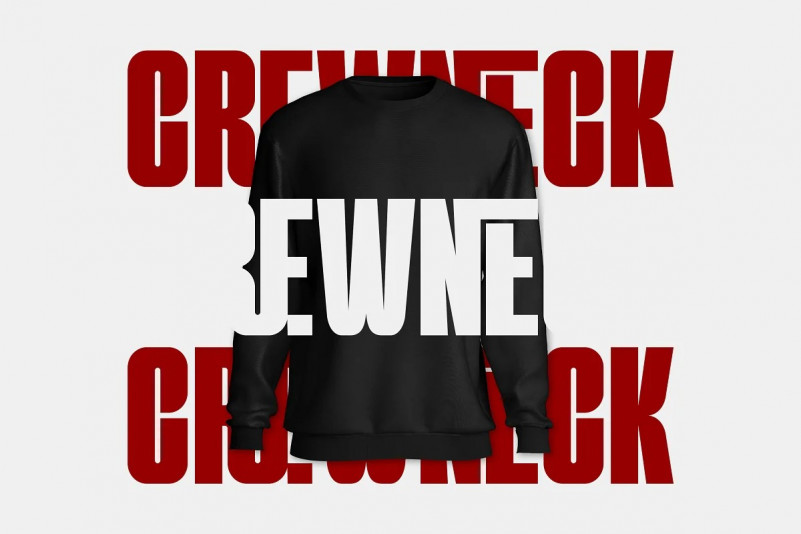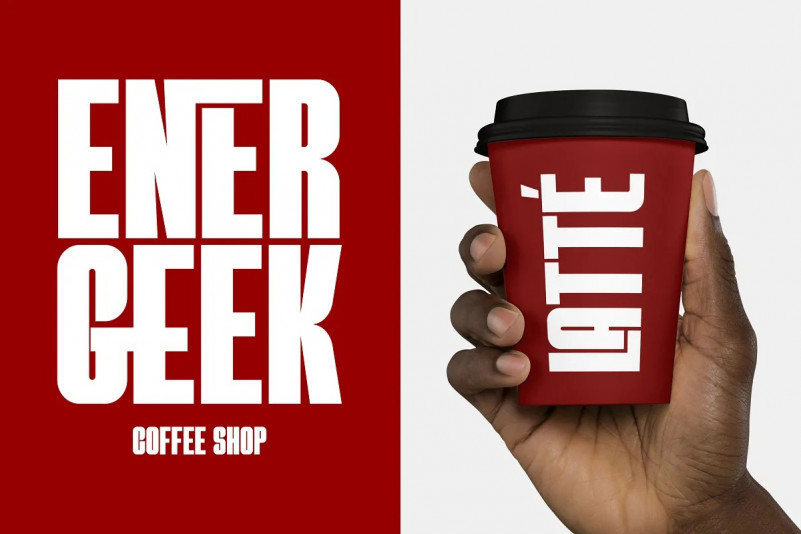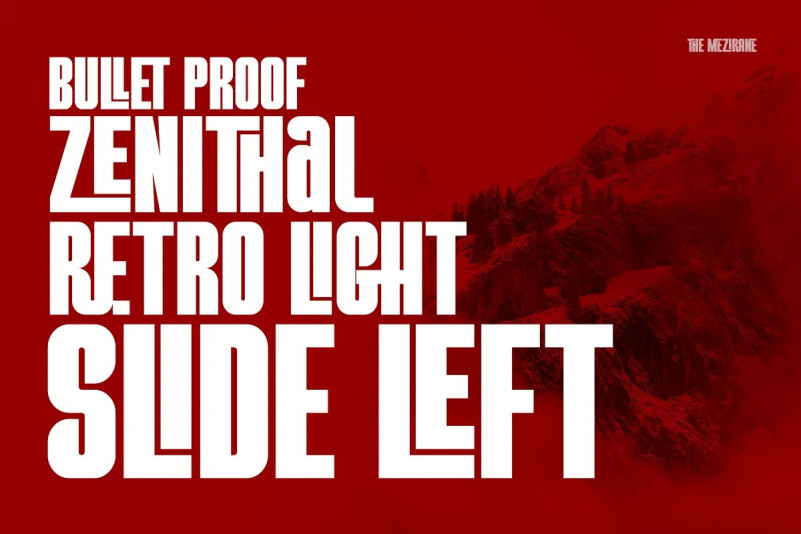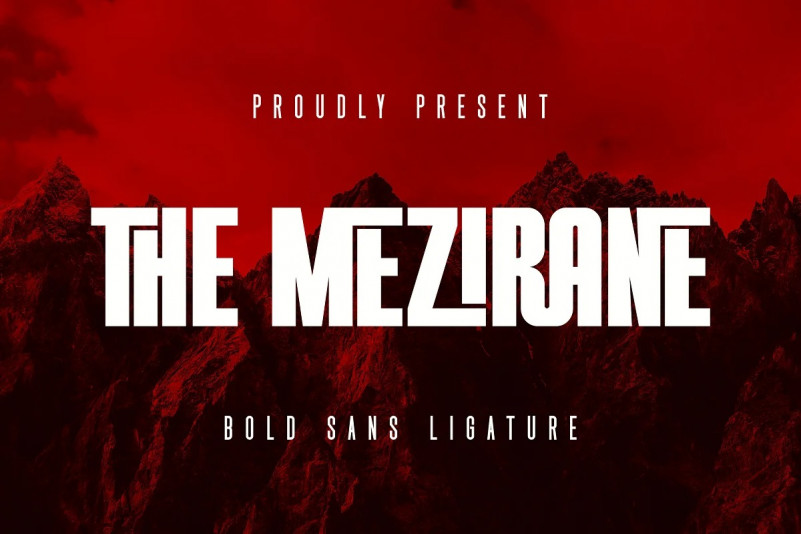
THE MEZIRANE Sans Serif Font
This font designed by Almarkha Type is a modern display sans serif typeface, inspired by the title of the sports poster and We make it very energetically, taking into account the thickness and density of each gliph, along with a ligature that makes this font look unique.
Theliens font with strong and challenging nuances. very suitable for the title, typography, clothes, Poster, magazines, brochures, packaging,Websites and much more for your design needs, making your designs more modern and professional